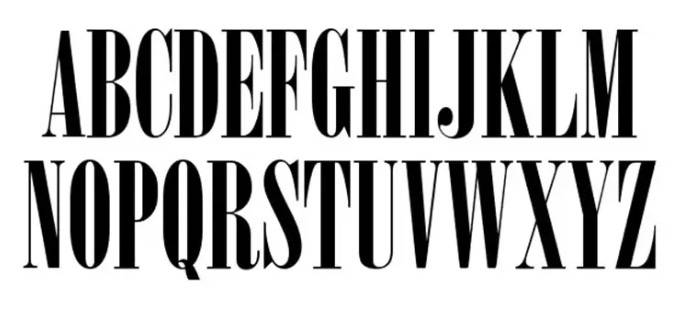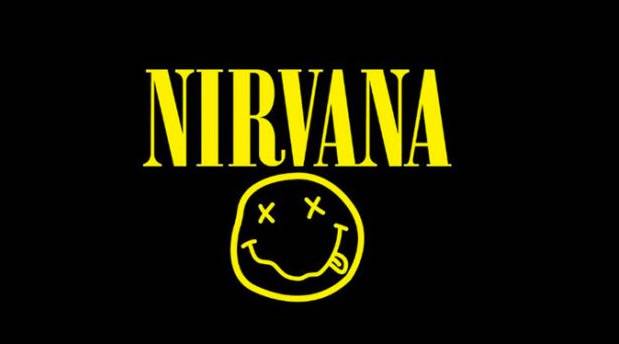
About Nirvana Font! Hello guys, today we wanna show you a Serif logo font family name Nirvana Font. Nirvana is a Serif font which is very similar to an elegant typeface called Poster Bodoni. This font family is totally based on an American Rock band. Its Nirvana.
Nirvana is an American Rock band. This Rock band was established in 1987 and consisted of 3 members are Kurt Cobain, Krist Novoselic, Dave Grohl. Nirvana Font has approximately 256 glyphs including ligatures, alternates and special characters. Designing for this font is concerned to give it the best suiting font for any other font been using.
Nirvana Serif Font
Moreover, This font harmonizes well with the lining figures and exceptional clarity in certain high profile tasks. I think many designers who want this Nirvana font. And I assure you, without any worry start with that. Because it has great potential to make every design flexibility.
The Nirvana font is ideal for extensive designing approaches. And you can use this Serif font for various purposes as in designing a brand logo, brochure or wedding, invitations cards, a poster or a cover layout. Along with using this font for the headline will also be a good idea.